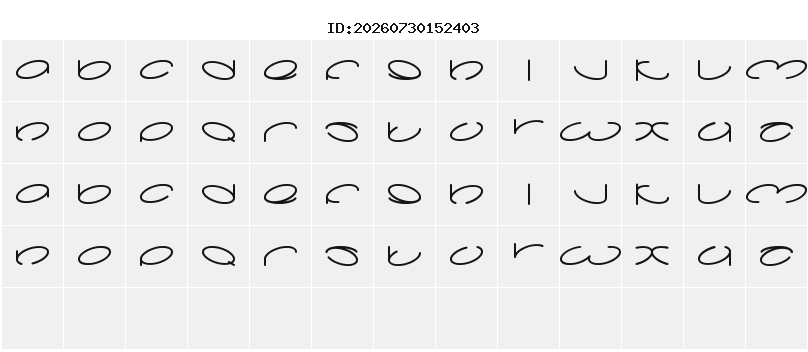
lanitta Preview
About lanitta.ttf
lanitta.ttf is a modern, elegant sans-serif font designed for ultimate readability and visual harmony. Perfect for branding, headlines, web design, and print materials.